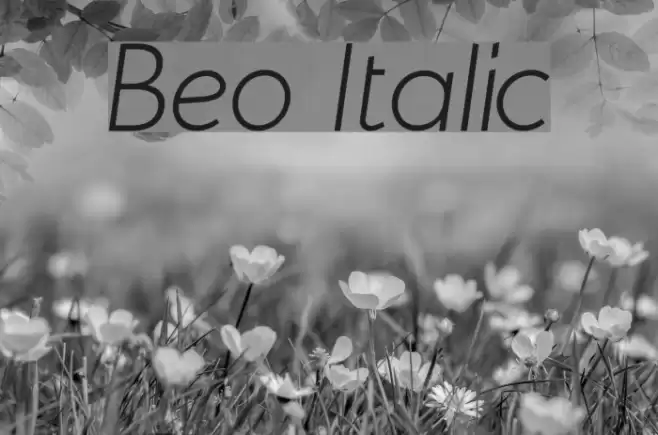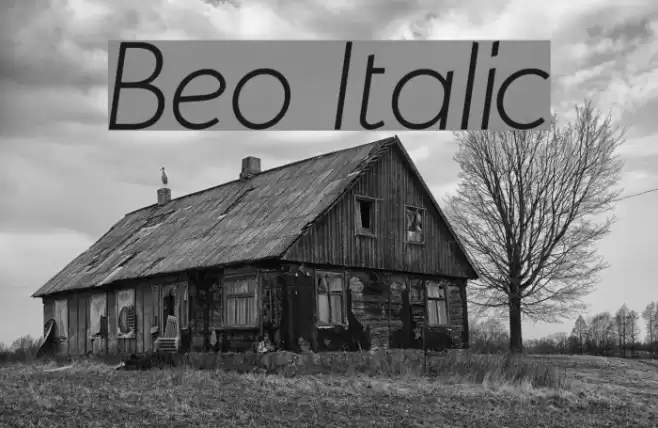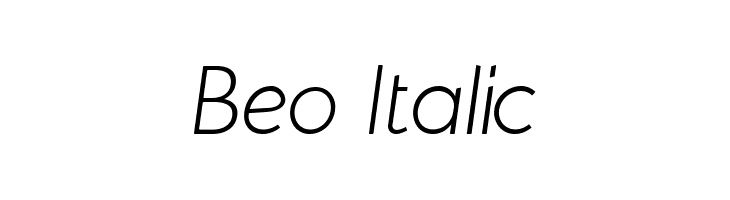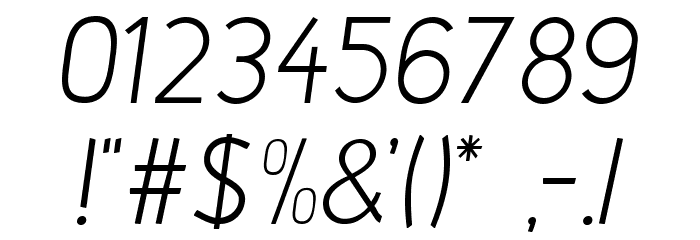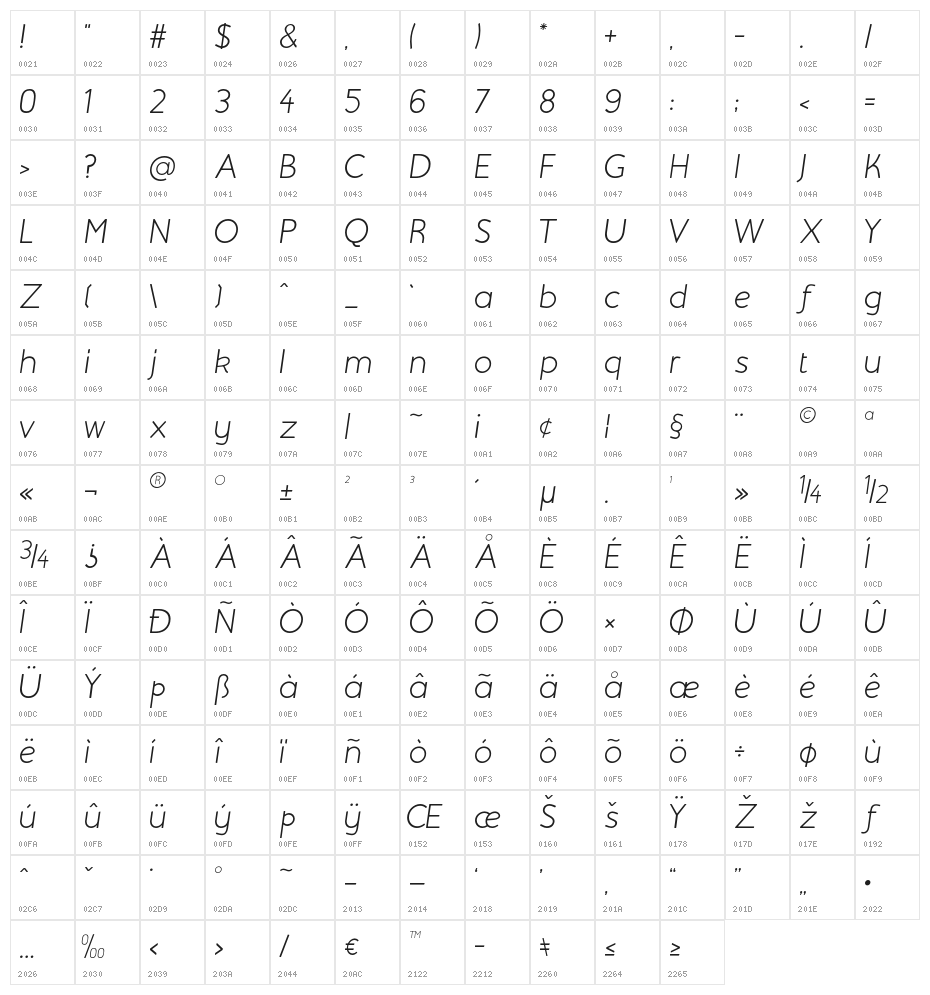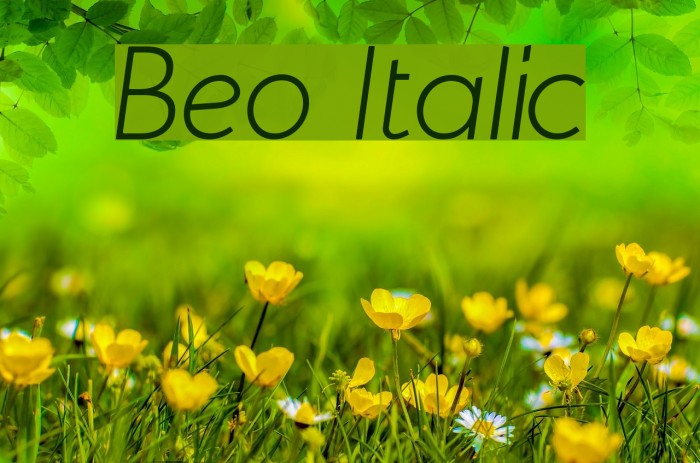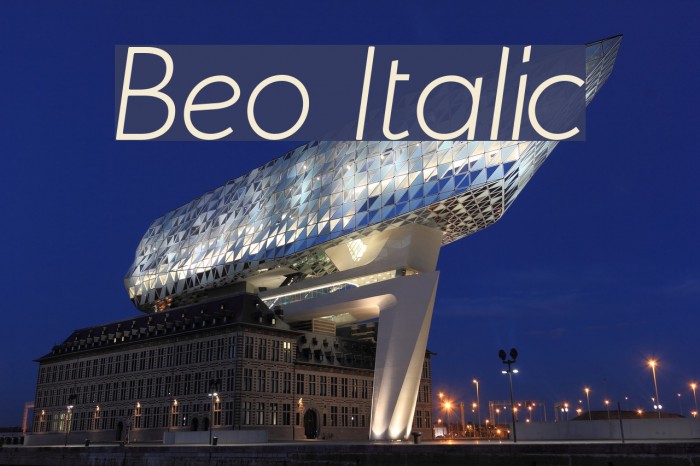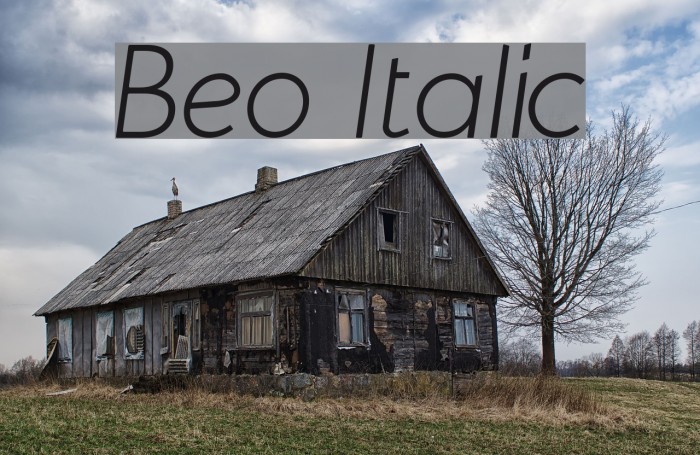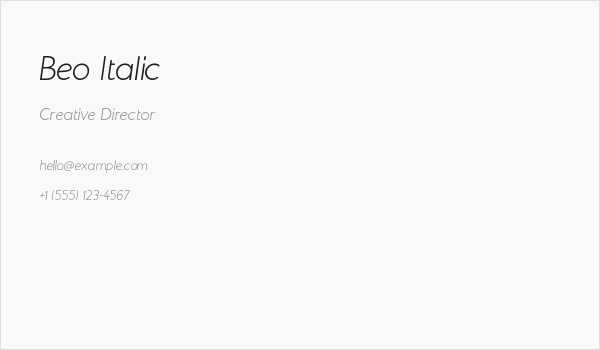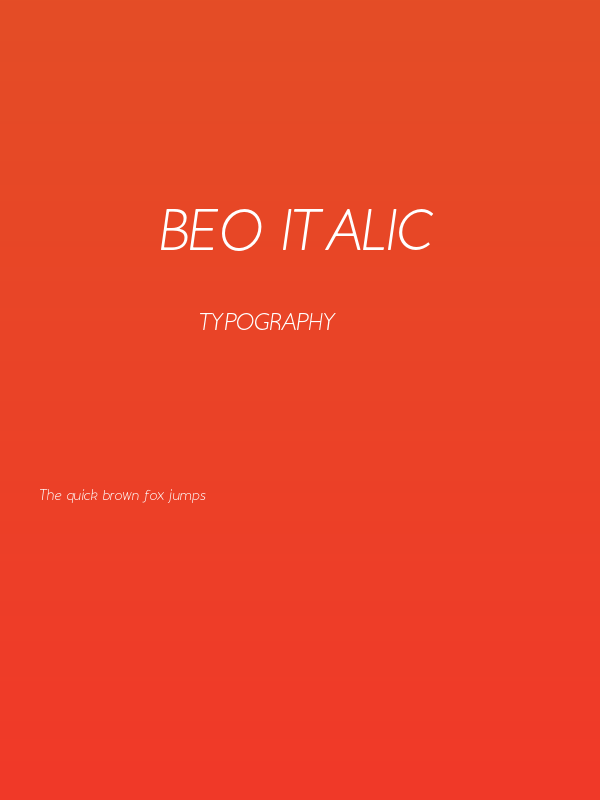
Beo Italic Font
Beo Italic Description
This font features a sleek, modern design with a slight italic slant, giving it a dynamic and elegant appearance. The characters are clean and well-defined, with smooth curves and a consistent stroke width that adds to its readability. The uppercase and lowercase letters maintain a harmonious balance, while the numerals and special characters are distinct and easy to distinguish. The overall look is minimalist yet sophisticated, making it suitable for a variety of design applications.
A modern, italic sans-serif font with clean lines and a sleek appearance from Uncategorized fonts.
- Proposed Projects: Ideal for branding, editorial design, websites, and advertising where a modern and elegant touch is desired.